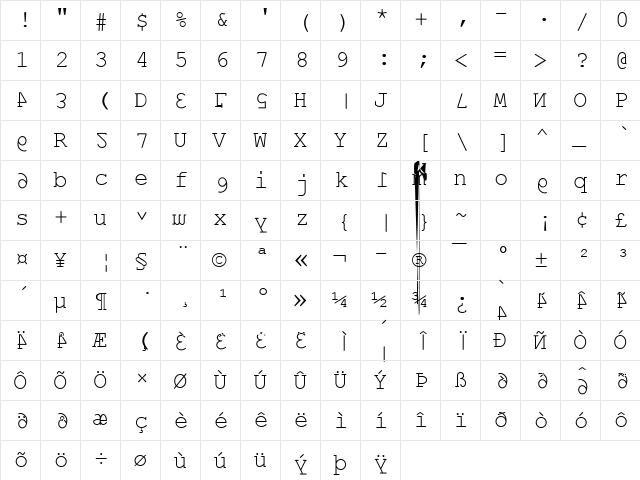
Cou7ier Regular Font Preview
Cou7ier Regular
Cou7ier Regular Font Details
Design Context for Cou7ier Typeface
Cou7ier is a composed and adaptable typeface that performs quietly and consistently across a wide range of design contexts.